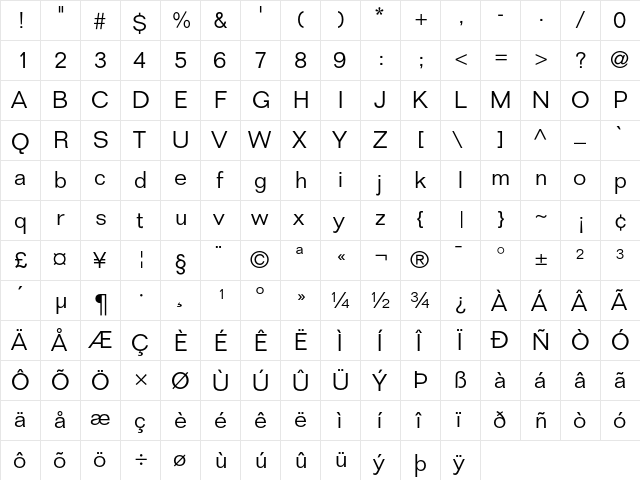
Folio Light
Design Context for Folio Typeface
Folio is a composed and adaptable typeface that performs quietly and consistently across a wide range of design contexts. Its slender proportions lend an understated elegance to any composition.
Pro Tip: Pair Folio with a font of contrasting weight or personality to build a more expressive typographic hierarchy.